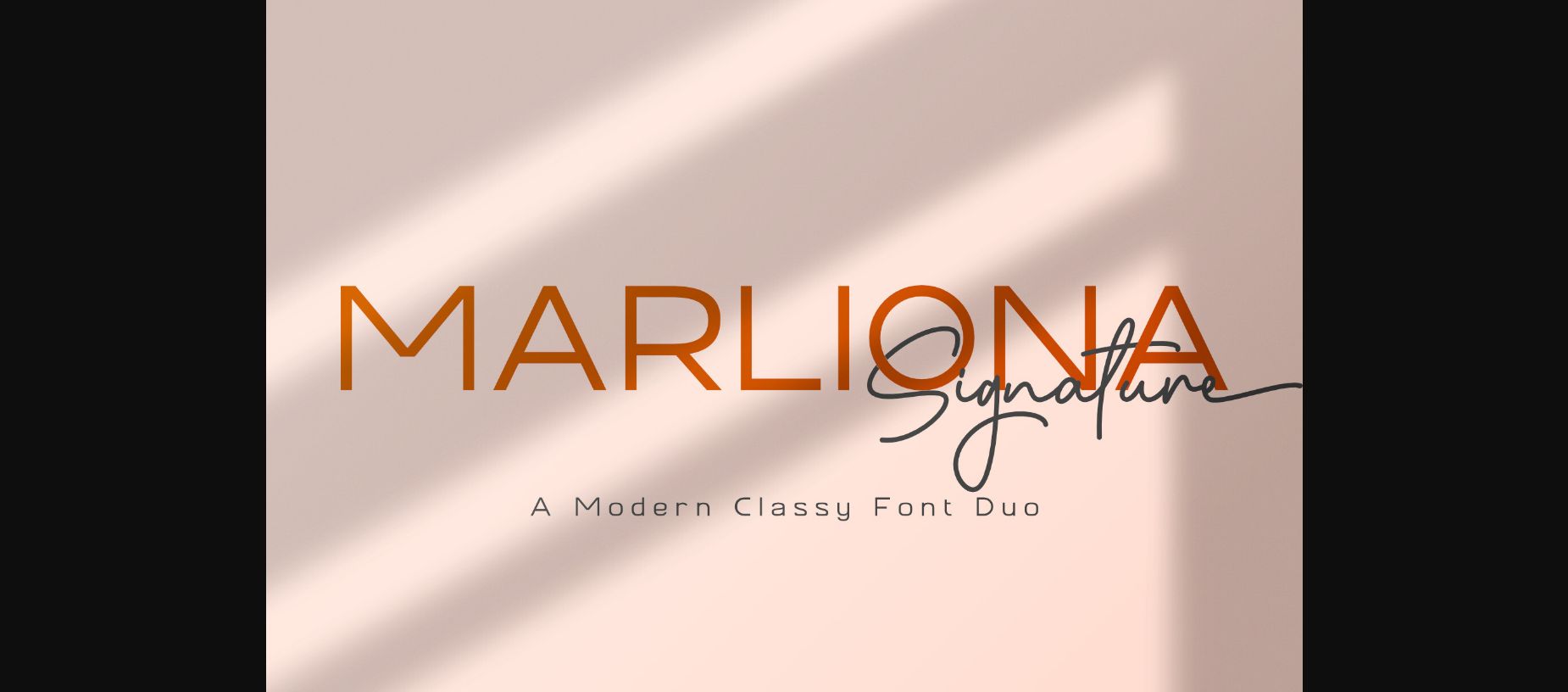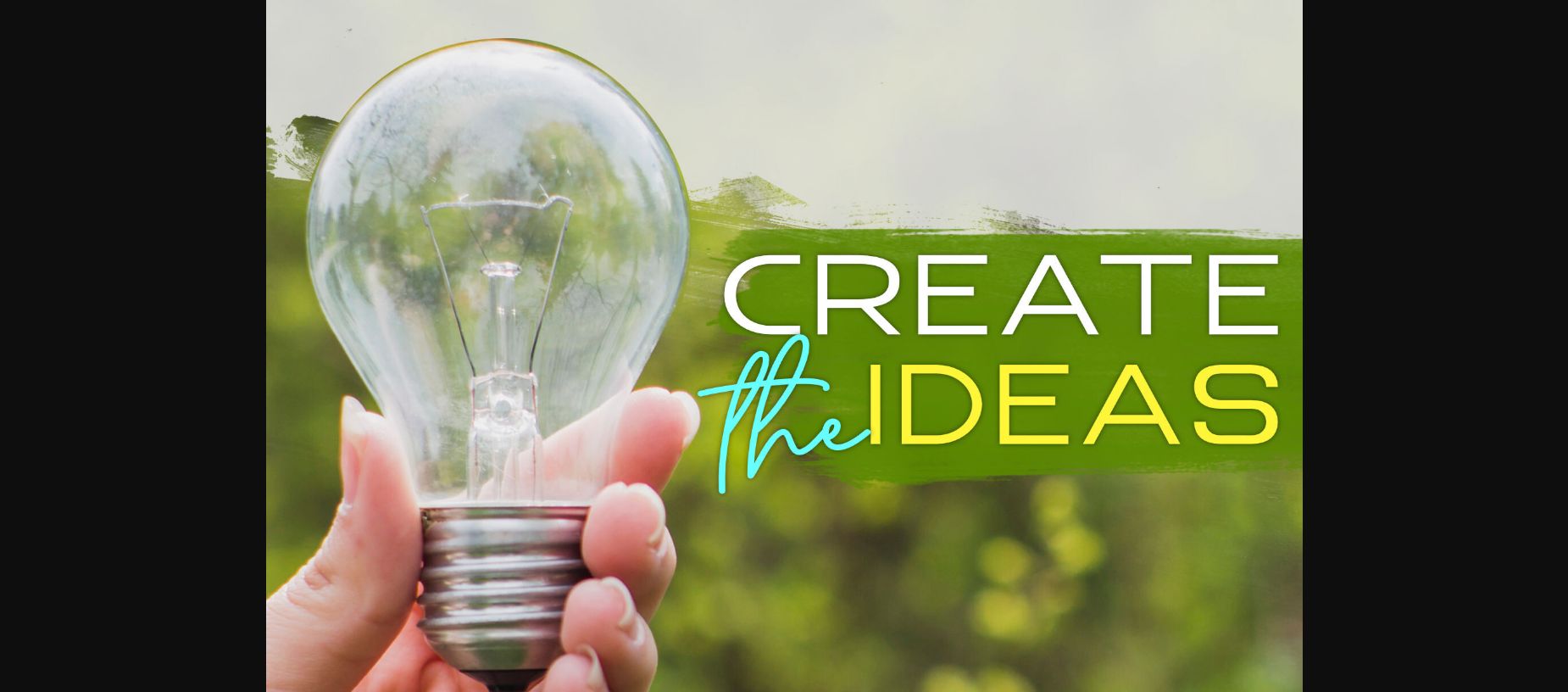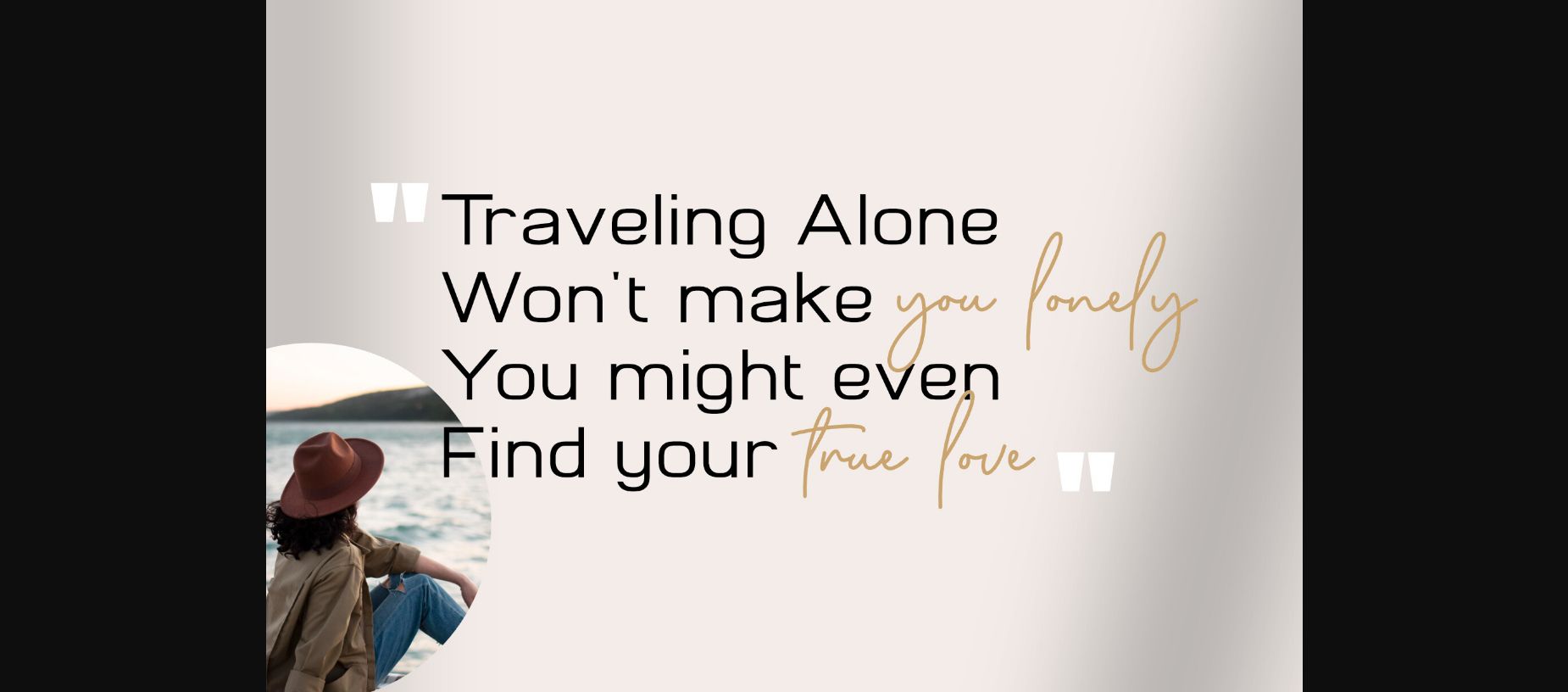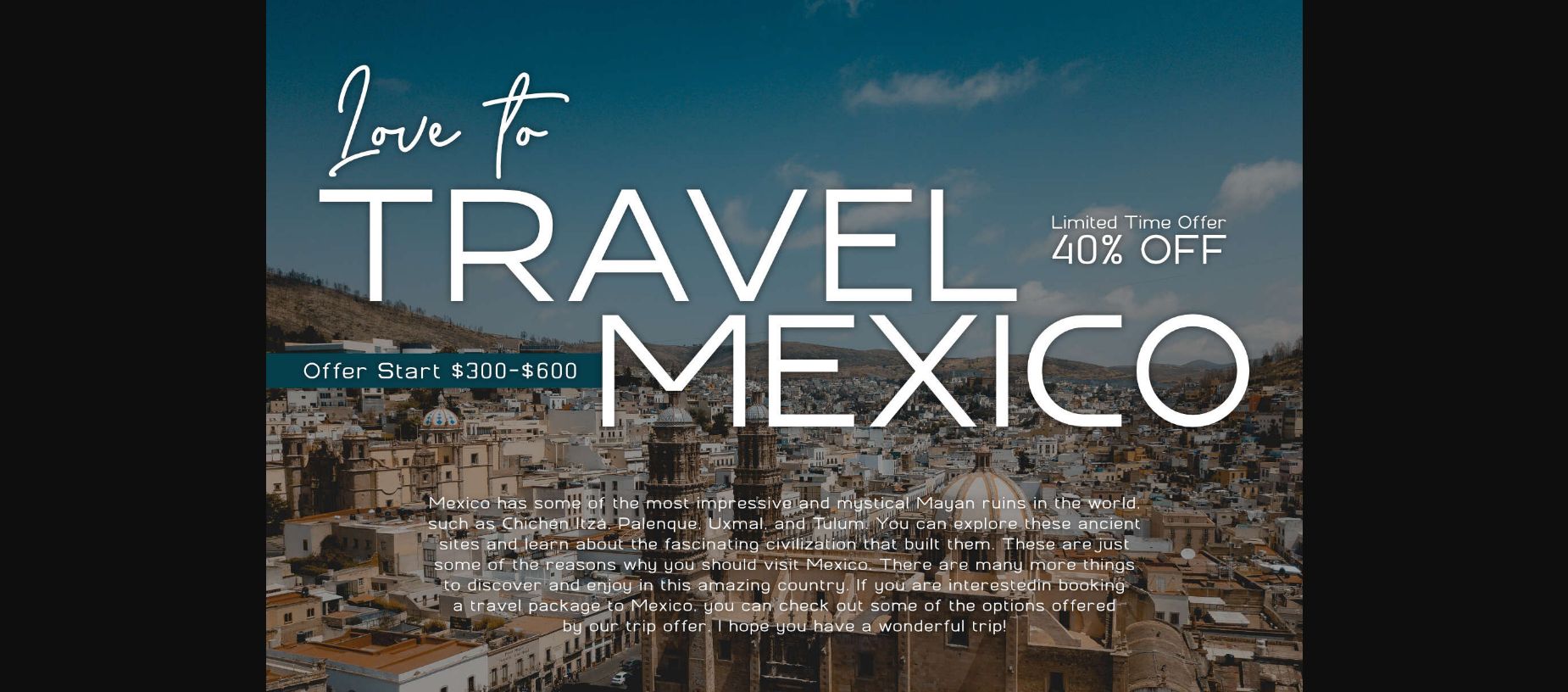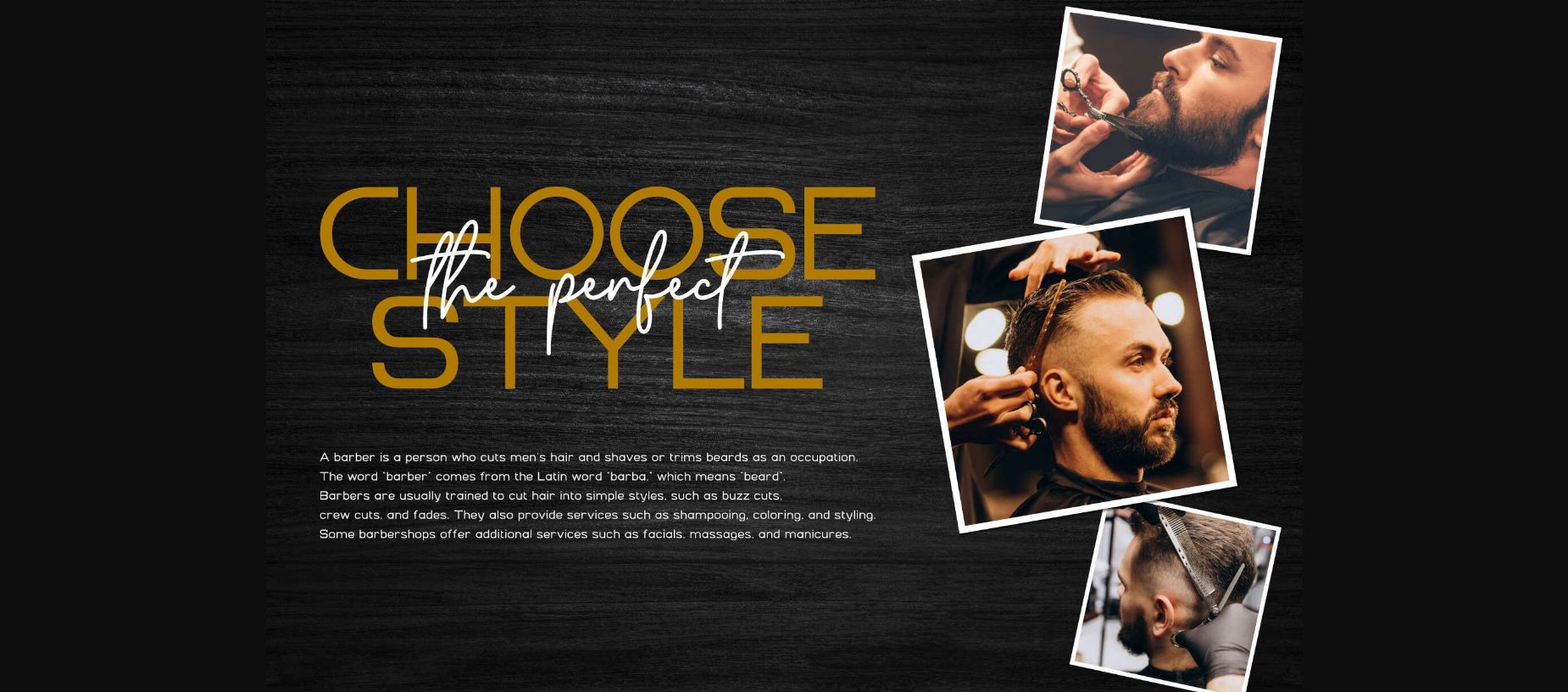
About Marliona Font
Introducing Marliona, a modern and classy font duo that features a smooth sans serif and a chic signature font. This font is perfect for casual and sporty design projects that need a touch of elegance and flair.
Whether you need a logo, a poster, a flyer, or an invitation, Marliona will make your design stand out with its unique and stylish appeal. Get Marliona today and enjoy its beauty and versatility.